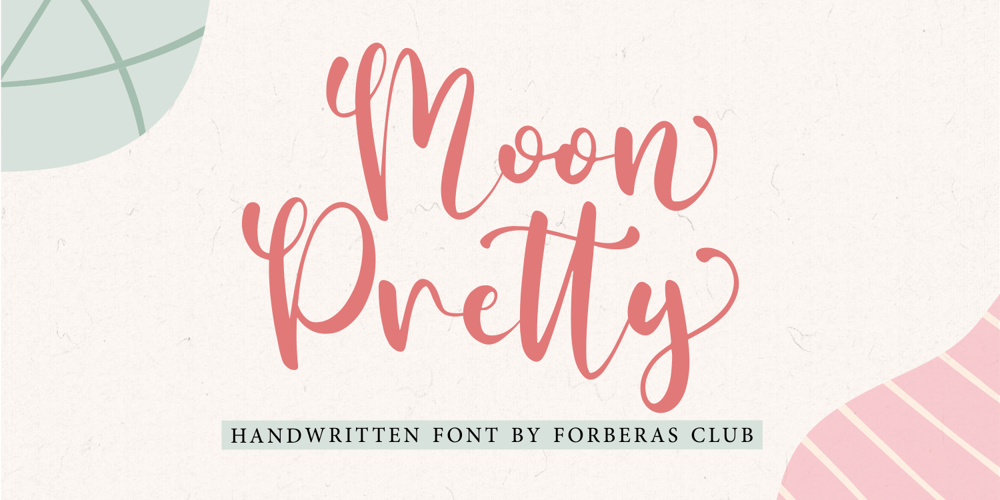
Moon Pretty Font Family was designed by ANGGI HERMAWAN and published by Forberas Club. Moon Pretty contains 1 styles and family package options. Moon Pretty, Font by Forberas Modern and beautiful handwritten script font! Great for wedding greeting cards, logos, branding materials, Invitation, business cards, quotes, posters, Cricut artwork and more!• No special software is required. The fonts can be opened and used in any software that can read standard fonts!• This font works with any application Microsoft Word, Adobe Photoshop, Microsoft Paint, Corel, Adobe Illustrator, Cricut, and many others!